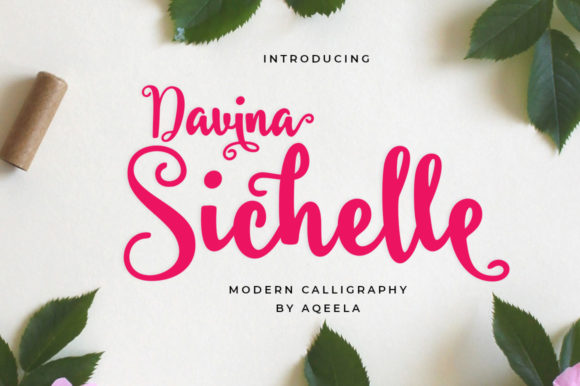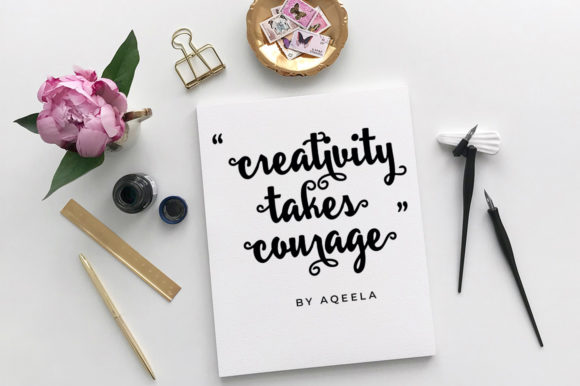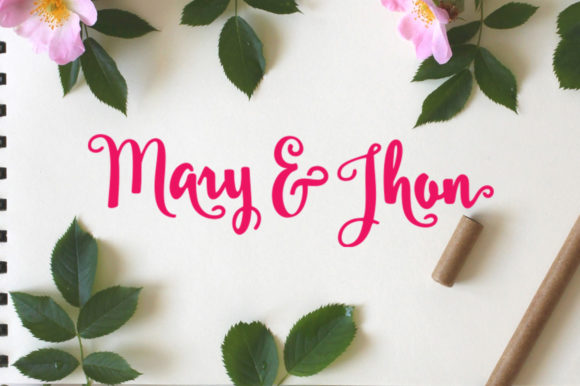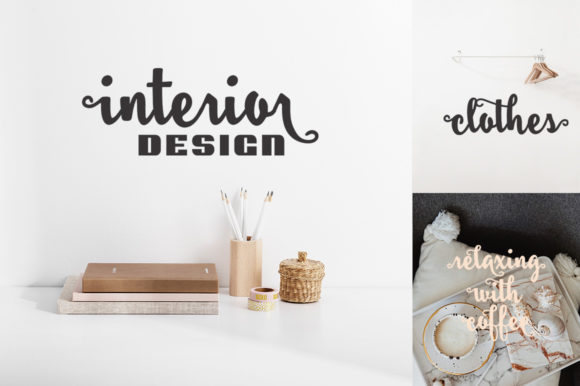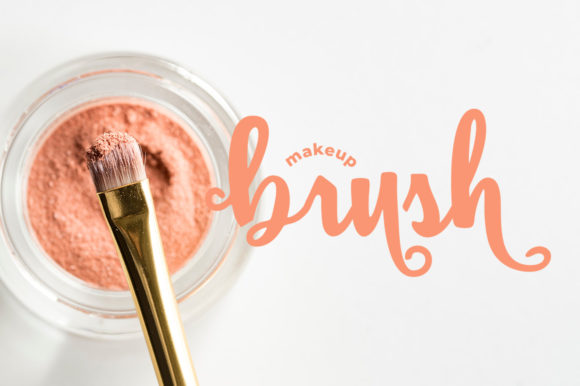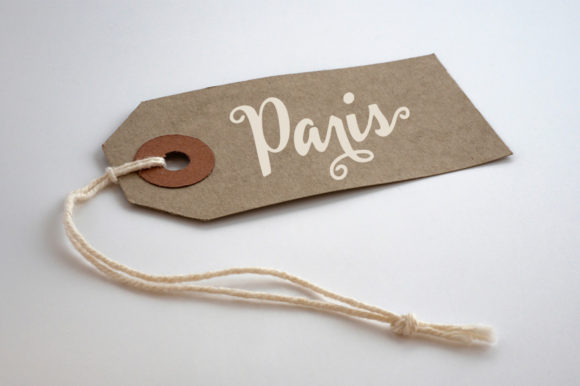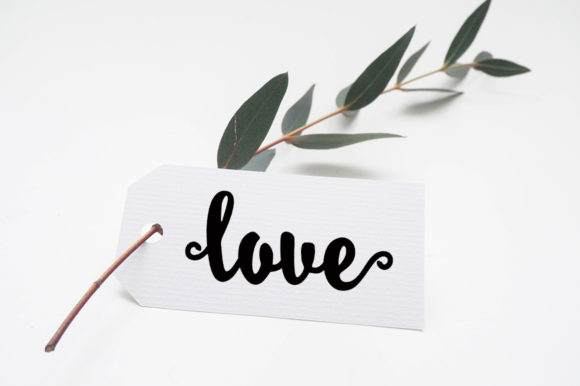
Davina Sichelle Font
About Davina Sichelle Font
Davina Sichelle is a script font that is elegant, cute, and feminine. It is the perfect font to make any design stand out!